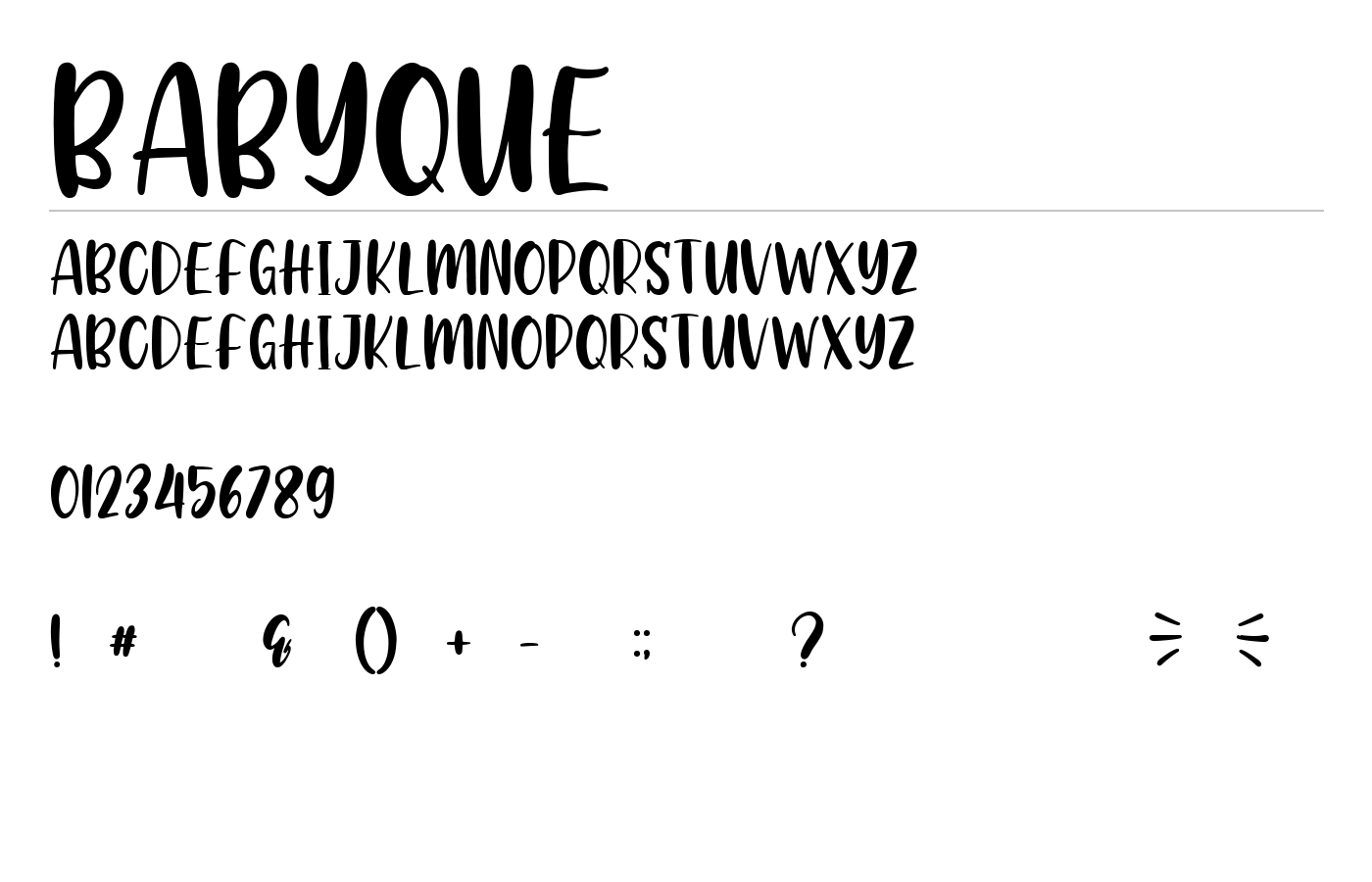
Babyque is a playful and casual handwritten sans serif font with a lively, friendly personality. Its slightly irregular strokes and tall, narrow letterforms give it a warm, approachable feel that works well for children’s products, creative branding, and informal headlines. This font adds a personal, fun touch to designs, making it ideal for invitations, packaging, and lifestyle websites that want to convey cheerfulness and charm.
Babyque Font
About Babyque Font
| Font family | Babyque Font |